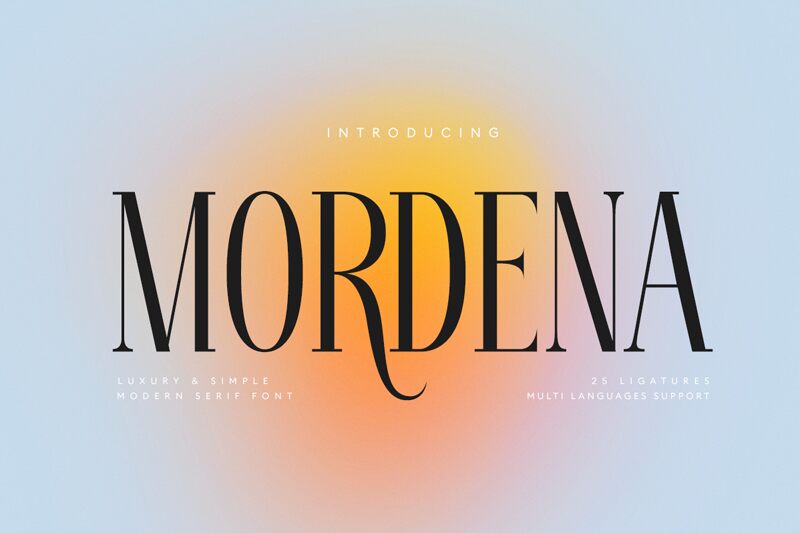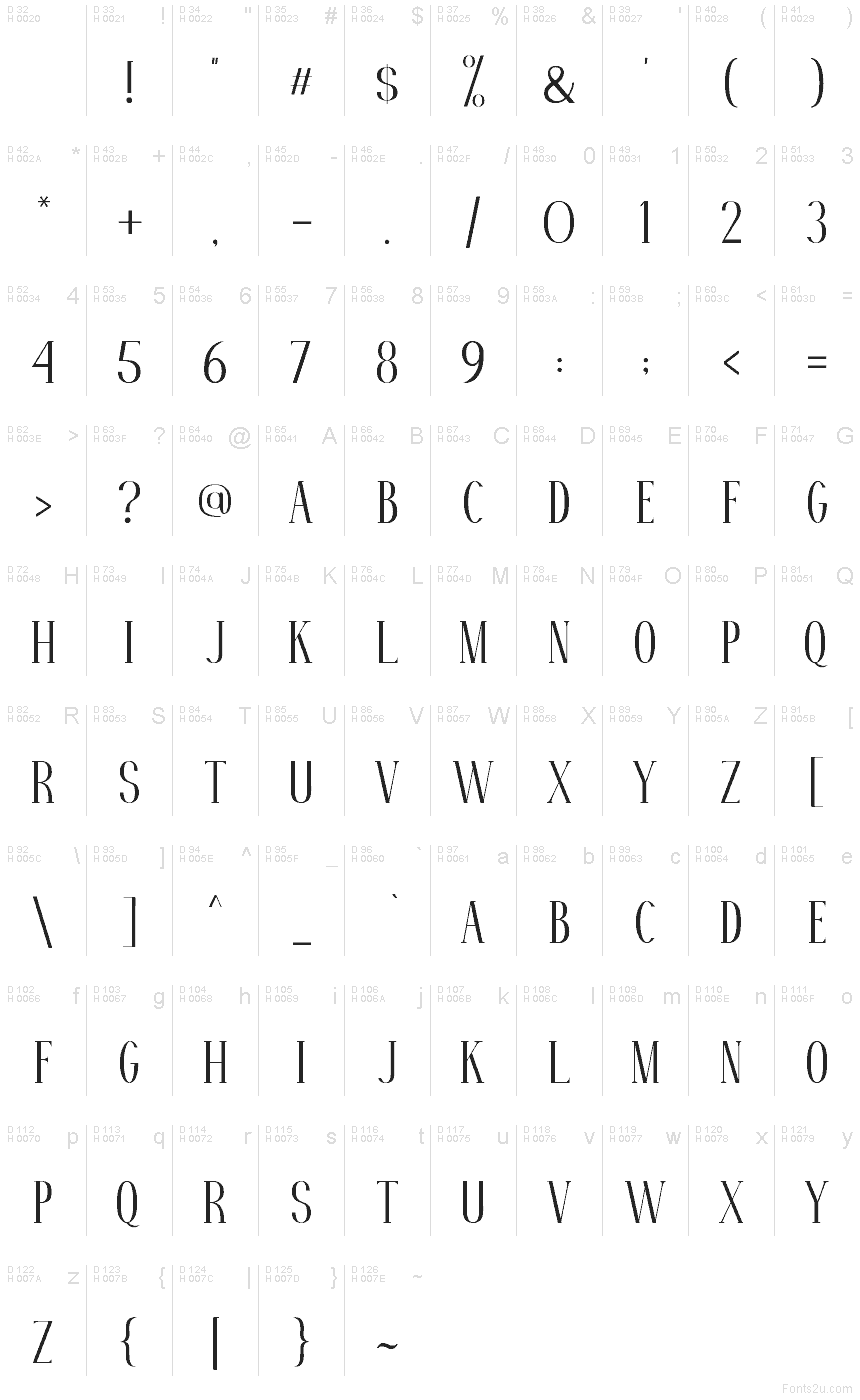
Mordena font by Scratch Design is a free serif typeface that pulls the eye upward with its towering letterforms and ultra-narrow stance. The strokes feel like they’ve been drawn with a steel nib: crisp verticals, fine crossbars, and a refined tension between thick and thin that gives every word a dramatic, editorial presence. There’s a cool, polished sharpness to Mordena that turns even short titles into visual statements.
Using Mordena, headlines feel elongated and luxurious, making it a natural fit for fashion branding, magazine covers, book jackets, posters, packaging, and bold website hero text. This free font shines when given room to breathe at larger sizes, where its slender proportions can really stretch. Pair Mordena with a clean geometric sans for body copy to balance its elegant drama and keep layouts readable and contemporary.